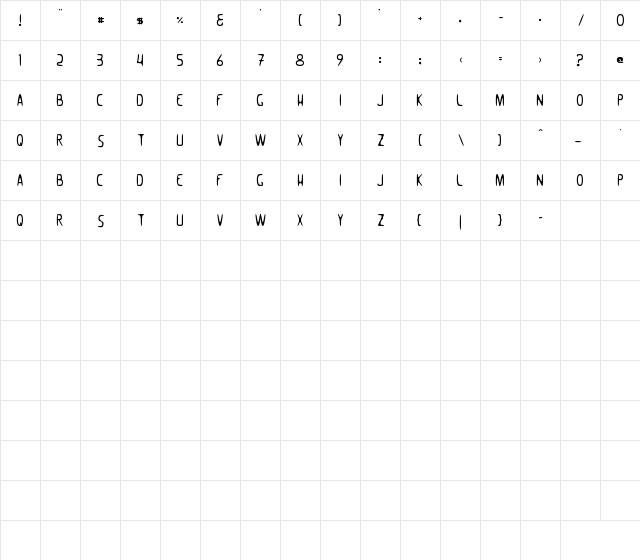
Woomble_002 Regular
| Foundry | Eric Wiryanata |
| Designer | Eric Wiryanata |
Design Context for Woomble_002 Typeface
Woomble_002 is a composed and adaptable typeface that performs quietly and consistently across a wide range of design contexts.